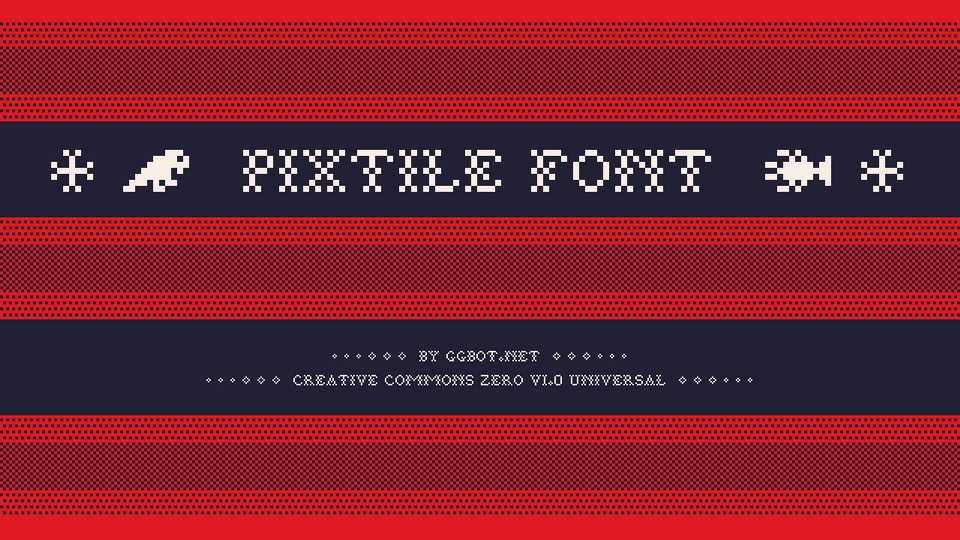
Download Pixtile is a decorative pixel font with a retro vibe. The font pattern also creates a stitched effect. Pixtile is perfect for game design, prints, posters and web.